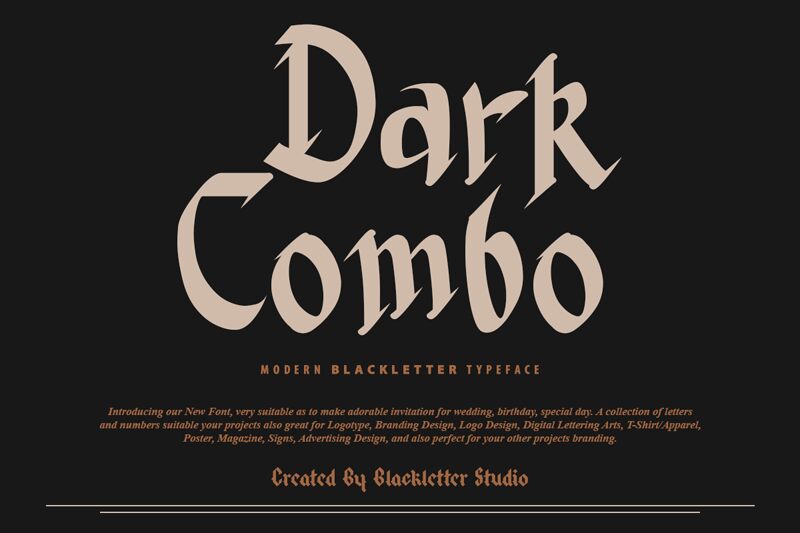
Dark Combo
Dark Combo is a remarkable gothic font designed by Blackletter Studio, with a modern twist. Its semi-light weight makes it perfect for headings, titles, and subtitles, adding an elegant touch to any project. This font is suitable for various projects such as vintage-themed designs, horror films posters, book covers, and even product packaging. Whether it's used for print or digital media, Dark Combo adds a unique personality to your work with its stylish curves and sharp angles. Embrace the essence of gothic style with Dark Combo and experience the power of typography at its finest!